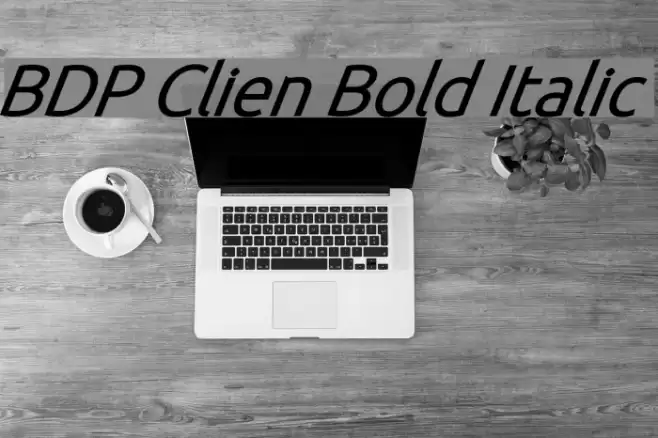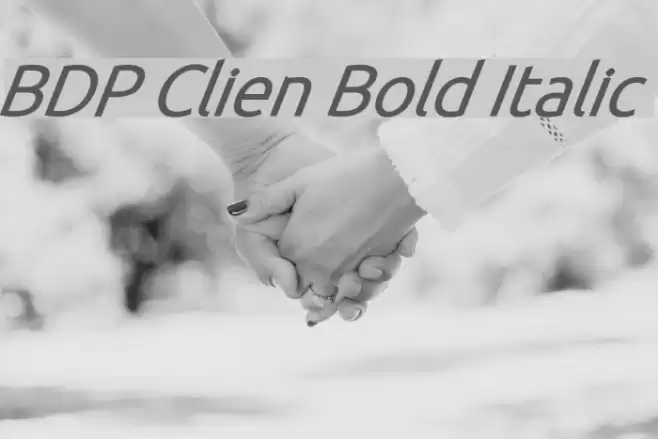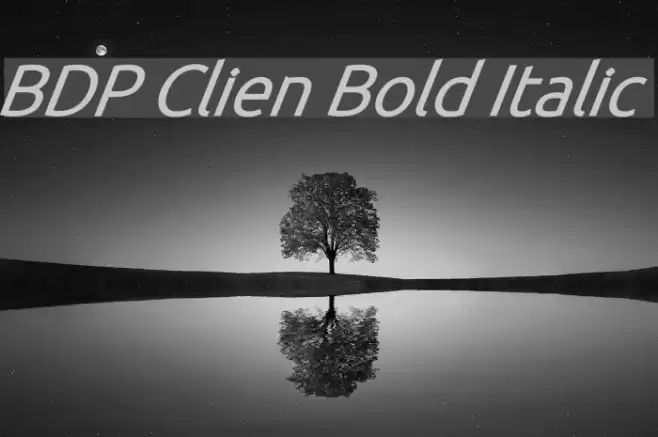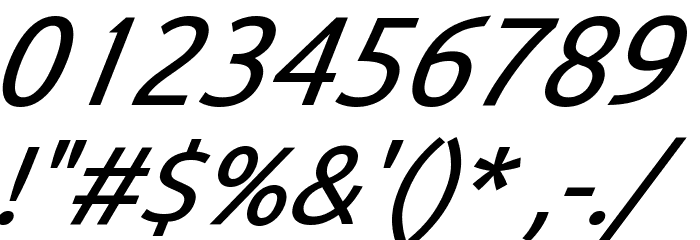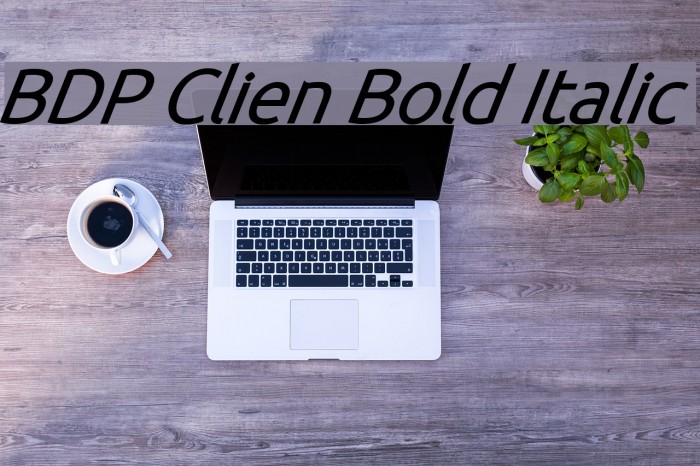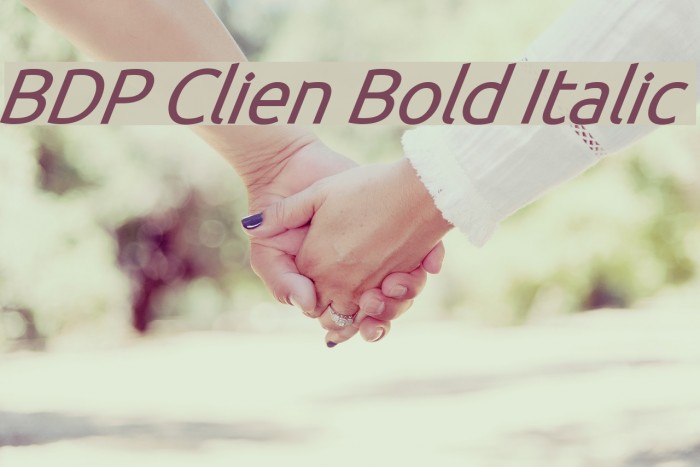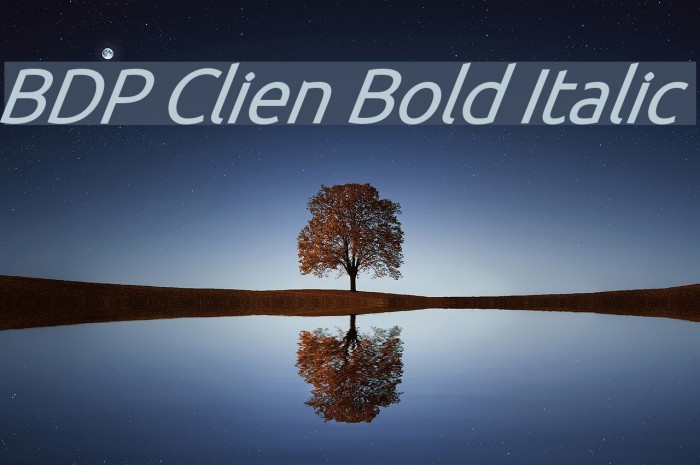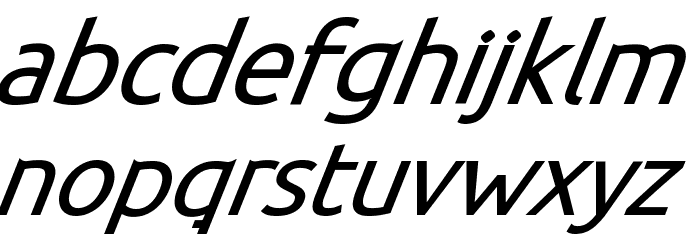
BDP Clien Bold Italic Font
BDP Clien Bold Italic Description
This font exhibits a sleek and modern design with a distinct italic slant, giving it a dynamic and forward-moving appearance. The characters are bold, enhancing their visibility and impact. The strokes are smooth and consistent, contributing to a clean and professional look. The font maintains a uniform weight across all characters, ensuring readability and balance. Its style is versatile, making it suitable for various applications where a contemporary and assertive typeface is desired. The spacing between characters is normal, providing clarity and ease of reading.
A bold, italic, and modern font with a sleek design from Uncategorized fonts.
- Proposed Projects: Ideal for branding, advertising, headlines, and digital media where a modern and impactful presence is needed.
- Use Case: Headlines, Logos, Branding